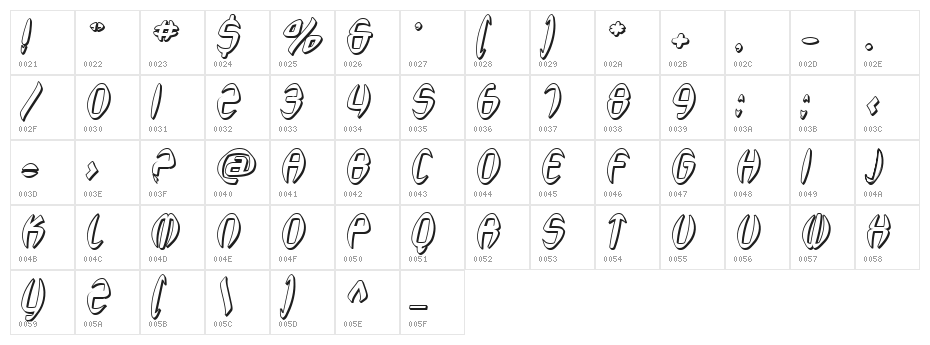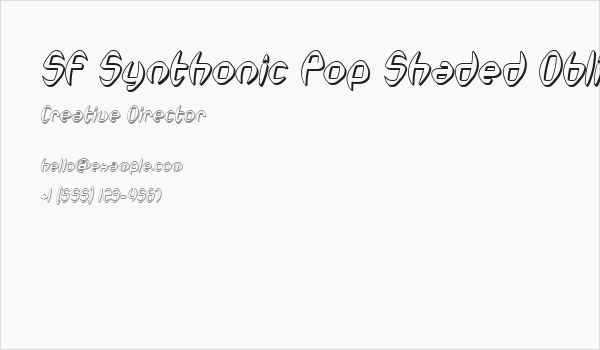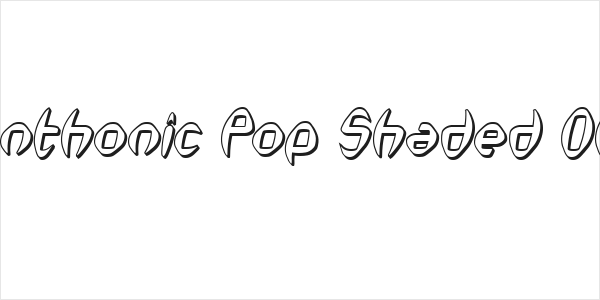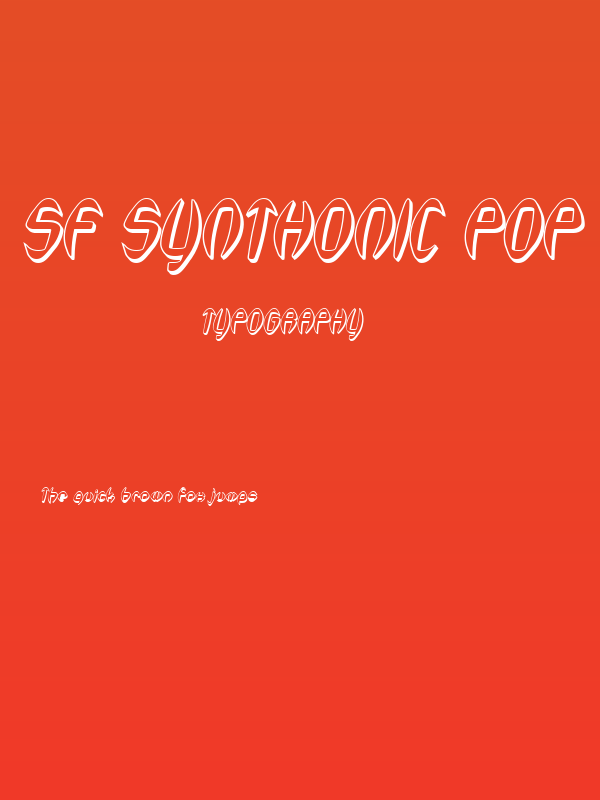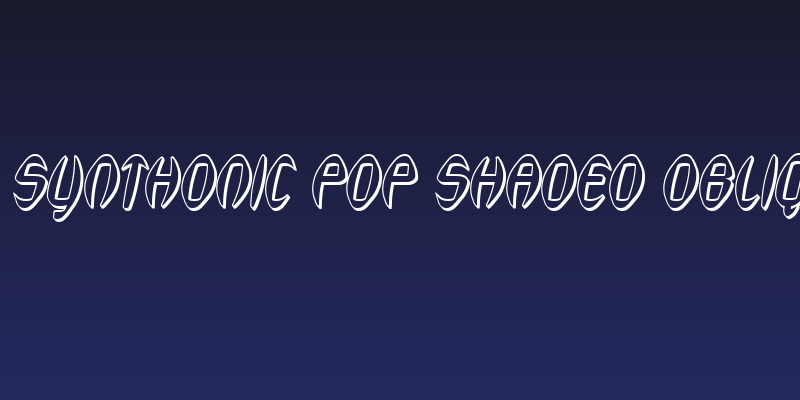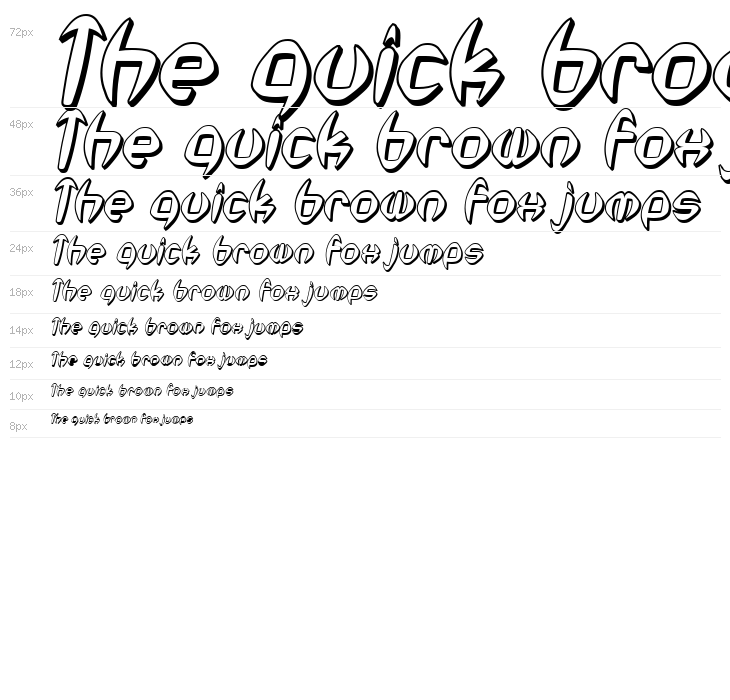
SF Synthonic Pop Shaded Oblique Font
SF Synthonic Pop Shaded Oblique Description
This font features a bold, futuristic design with a shaded, oblique style that gives it a dynamic and energetic appearance. The characters are outlined with a thick stroke, creating a three-dimensional effect that adds depth and interest. The uppercase and lowercase letters maintain a consistent style, with rounded edges and a slight slant that enhances the sense of motion. Numbers and special characters are designed with the same boldness and shading, ensuring uniformity across all elements. The font's unique style makes it stand out, making it ideal for projects that require a modern and eye-catching look.
| Proposed Projects | Ideal for music album covers, video game titles, sci-fi movie posters, and modern branding projects. |